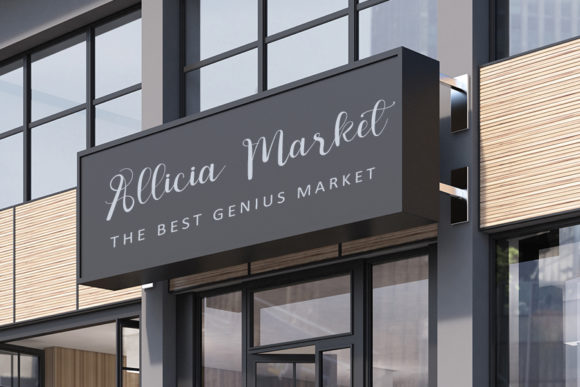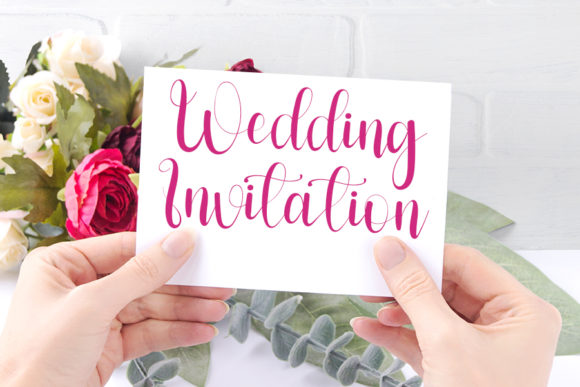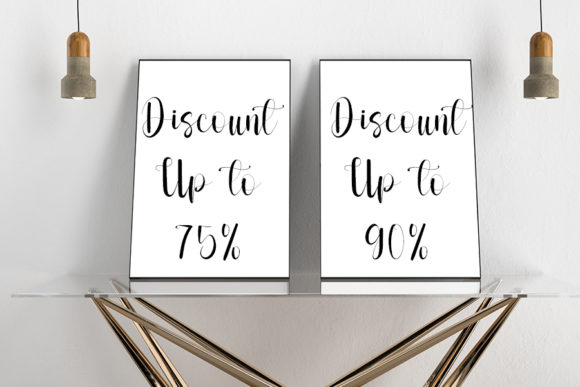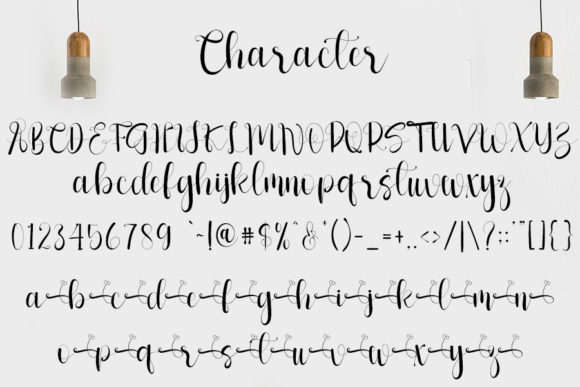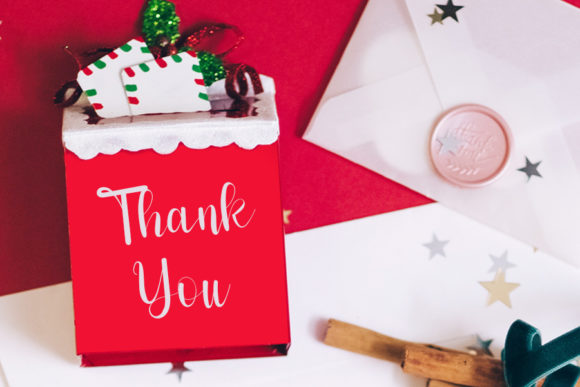
The Designer’s Delight: A Deep Dive into Enjoynes Font
I’ll never forget the time I was working on a project for a client who wanted a elegant, high-end look. I had spent hours scouring the internet for the perfect font, but nothing seemed quite right. That was until I stumbled upon Enjoynes Font. This stunning calligraphy font has been a game-changer for my designs, and I’m excited to share its beauty with you.
Enjoynes Font is a stylish and delicate calligraphy font that has won my heart. Here’s what I love about it:
- ✨ Clean, thin, and smooth vibe that’s perfect for adding a touch of elegance to any design
- ✅ PUA encoded, making it easy to access all the glyphs and swashes
- 💫 Highly legible, even at small font sizes
- 🎨 Versatile and works well for a variety of design projects, from invitations to branding
While Enjoynes Font is a beautiful font, there are a few quirks to be aware of:
- 🤔 Some users may find the font a bit too delicate for certain design projects
- ⚠️ Limited availability of bold or heavy weights, which may limit its use for certain applications
The Story Behind Enjoynes Font
Enjoynes Font was created by a talented designer who wanted to create a font that would bring a touch of elegance to any design. Inspired by traditional calligraphy, the designer poured their heart and soul into crafting a font that’s both beautiful and functional.
| What is Enjoynes Font? | Enjoynes Font is a stylish and delicate calligraphy font that’s perfect for adding a touch of elegance to any design. |
| Is Enjoynes Font PUA encoded? | Yes, Enjoynes Font is PUA encoded, making it easy to access all the glyphs and swashes. |